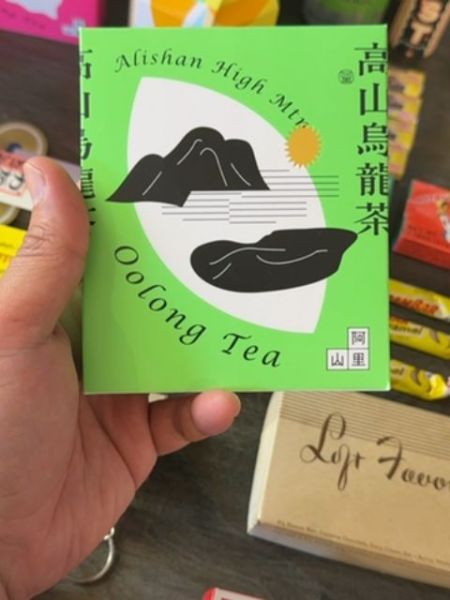
Alishan High Mountain Oolong Tea
This is a type of oolong tea known for its floral and fruity notes, often grown in high mountain regions for enhanced flavor.
Typography
The typography uses a mix of serif and sans-serif fonts. The 'Oolong Tea' text is in an elegant serif font that evokes a sense of tradition and quality. The combination of English and Japanese characters adds an international flair to the design.
Packaging
The packaging is a bright green square box featuring stylized illustrations of mountains and a sun. The aesthetic is minimalist yet vibrant, highlighting the natural origin of the tea.